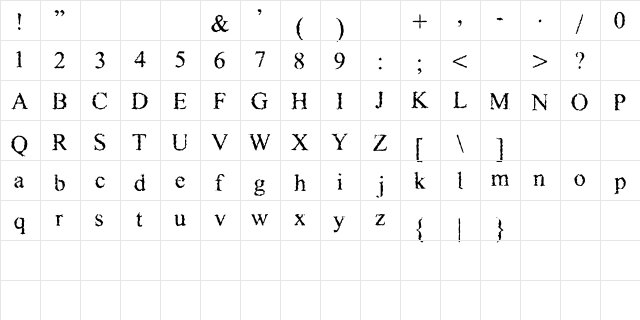
Ghost of Times New Roman Medium
Design Context for Ghost of Times New Roman Typeface
Ghost of Times New Roman offers clean, dependable letterforms without strong stylistic allegiance, making it a practical choice for designers who need flexibility.